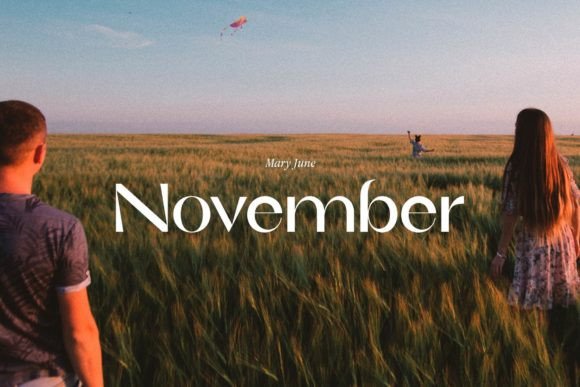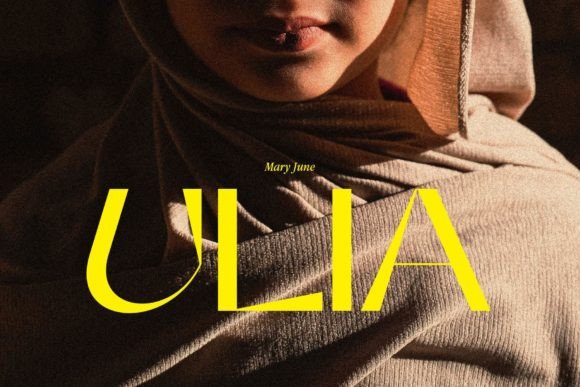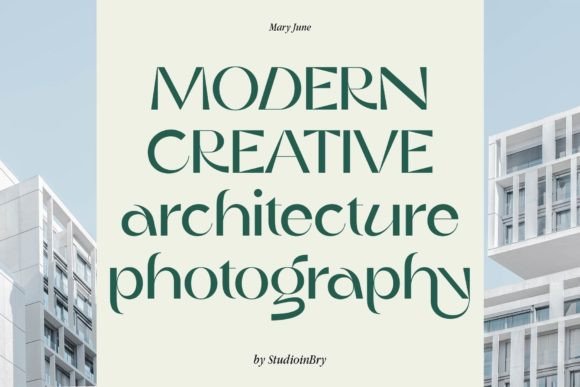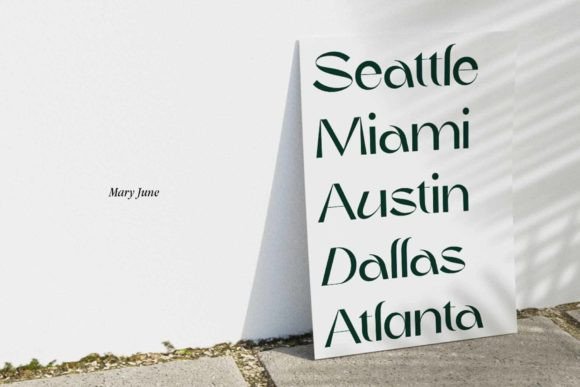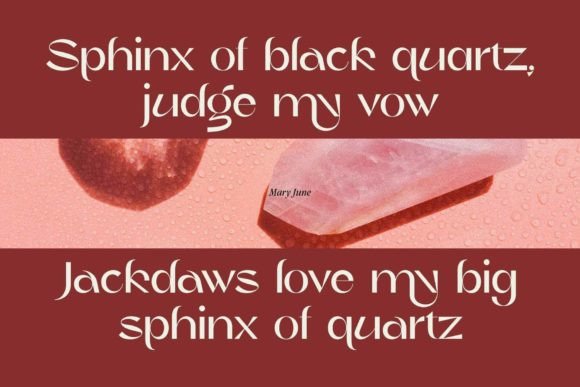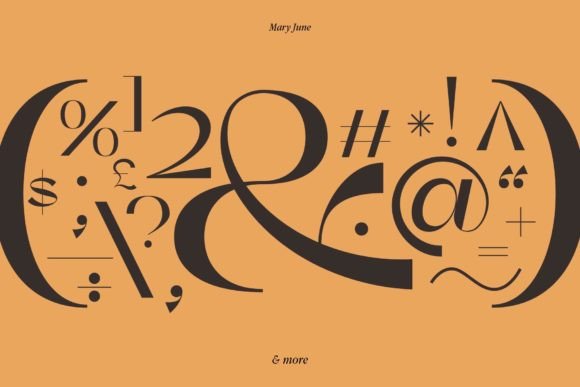
Introduction to Mary June Font
Mary June is a clean, elegant, modern, and high-contrast sans-serif font.
You can use it for branding, social media, posters, packaging & more .
Key Features of Mary June Font
Why Choose Mary June Font?
Mary June Font offers exceptional quality and versatility, making it a valuable addition to your design toolkit. Whether you’re creating for personal projects or commercial use, Mary June Font delivers professional results.